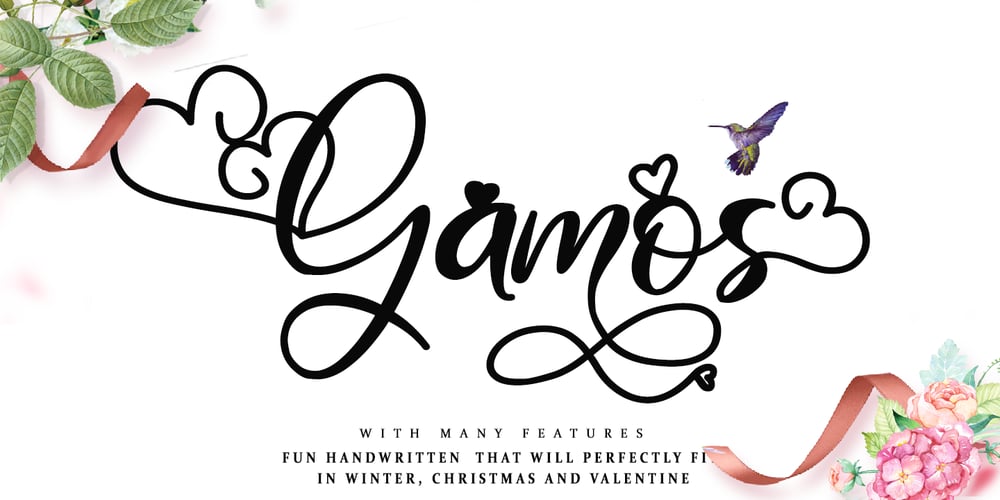
Gamos Font Family was designed by Thomas Aradea and published by Letterara. Gamos contains 3 styles and family package options. Gamos comes from Greek which means marriage. Add some love in an instant. The font comes decorated with small embellishments, such as hearts. Making it the perfect font for Valentines Day designs, but also Christmas, Weddings, Anniversaries, Birthday cards, table numbers, header menus, display’s, logos, slider blogs, custom addresses, stamps, packaging, greeting cards, and much more!